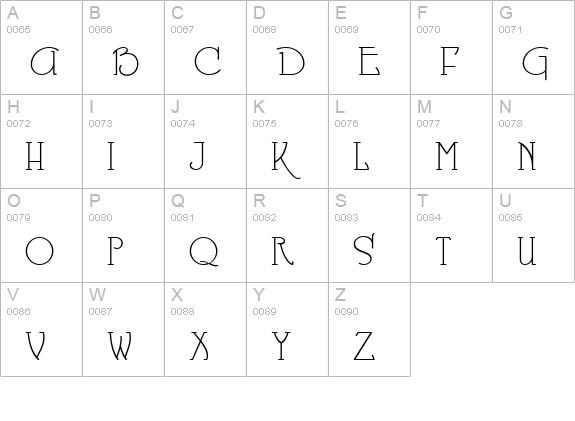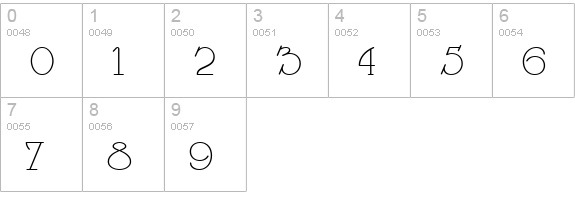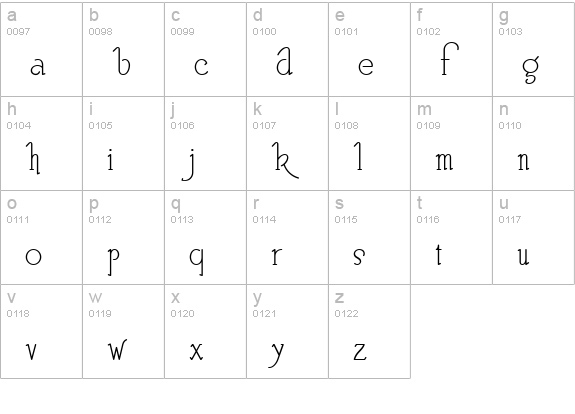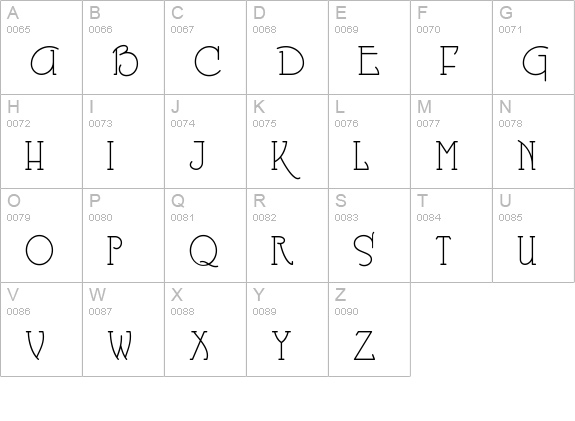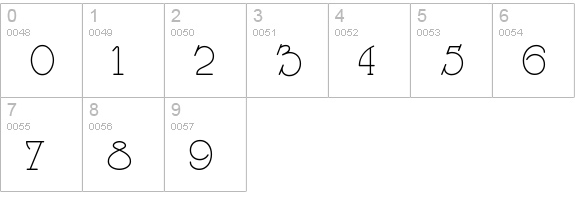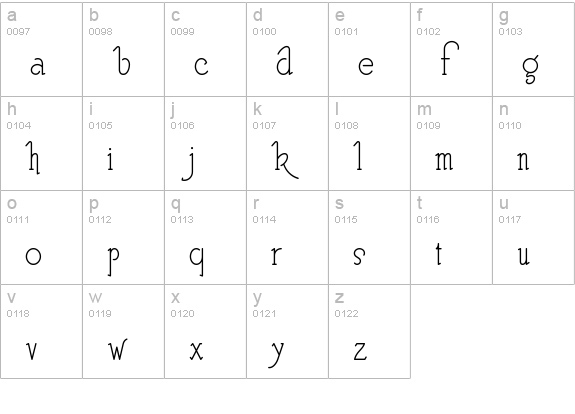
BerglingFantasiaNF Font Details
BerglingFantasiaNF font is a whimsical and enchanting typeface that will bring a touch of magic to your designs. Its elegant curves and intricate details make it perfect for adding a fairy-tale feel to any project. This unique font is free to download at FontsMarket.com, making it accessible to all who wish to add a sense of fantasy and wonder to their creative works. Let BerglingFantasiaNF font transport you to a world of imagination and creativity with its ethereal charm and ethereal beauty.